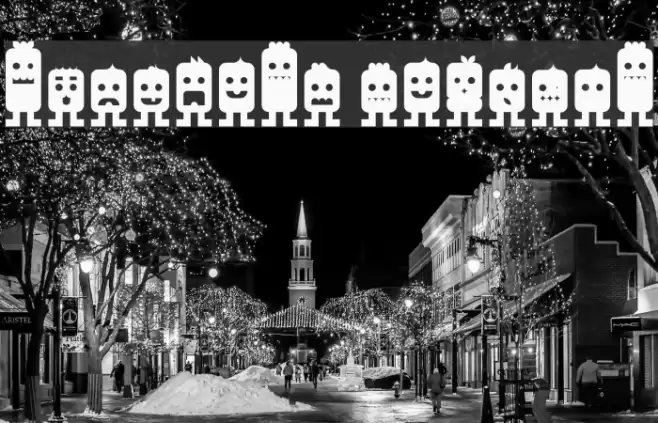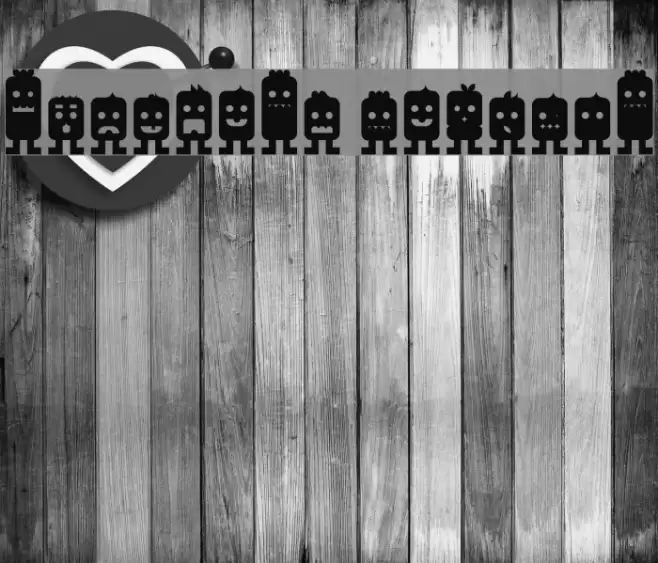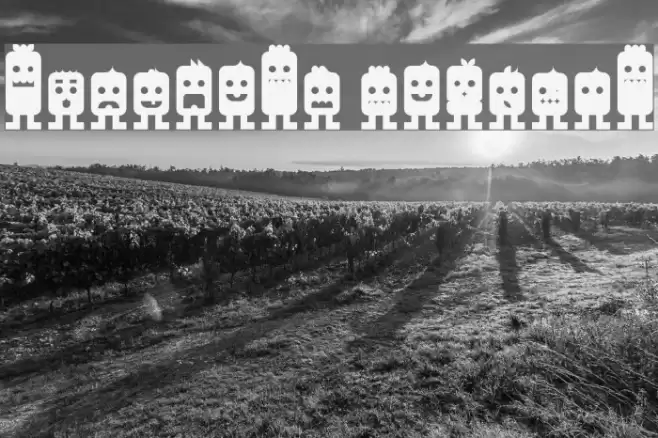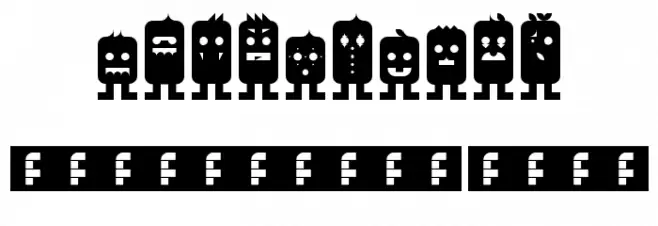
Monsterz Regular Font
Monsterz Regular Description
This font features a playful and whimsical design, with each character represented as a unique monster-like figure. The characters are bold and filled, with distinct facial expressions and quirky features such as horns, teeth, and eyes. The overall design is highly decorative, making it ideal for projects that require a fun and engaging visual element. The characters are evenly spaced, providing a balanced and cohesive appearance. This font is perfect for children's materials, party invitations, or any creative project that aims to capture attention with its imaginative style.
A playful, monster-themed decorative font with unique character designs from Uncategorized fonts.
- Proposed Projects: Children's books, party invitations, playful branding, creative posters.